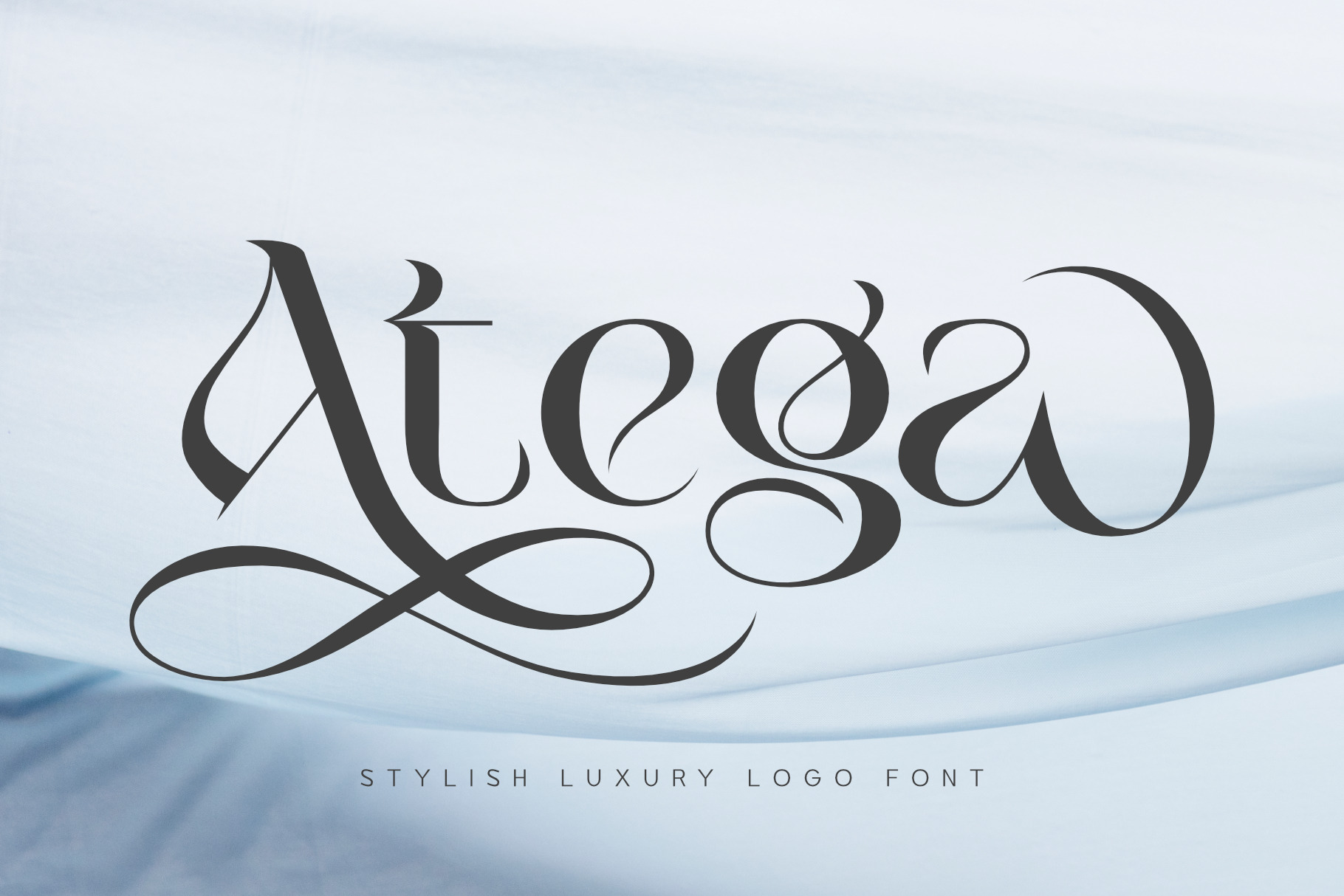
Atega - Stylish Luxury Logo Font
Introducing Atega, a font that embodies the essence of modern luxury and timeless elegance. Designed to enhance your brand, Atega seamlessly blends contemporary style with classic refinement, making it the perfect choice for logos and upscale branding projects.
The Story Behind Atega:
Imagine a typeface that captures the spirit of sophistication, combining modern design elements with traditional elegance. Atega was created to exude style and grace, offering a premium look that ensures your designs make a lasting impression. Each character is meticulously crafted to reflect refinement and quality, helping your creations stand out in any context.
Atega Font Features:
- Elegant Design: A stylish and polished font ideal for luxury branding.
- Modern Aesthetics: A perfect fusion of contemporary design and classic sophistication.
- Versatile Applications: Suitable for logos, branding, invitations, and high-end marketing materials.
- High Readability: Clear and refined, ensuring your message is conveyed with elegance.
- Creative Previews: Includes sample designs to inspire your creativity.
- Luxury Brands: Craft logos and brand identities that exude elegance and sophistication.
- Premium Products: Design packaging and marketing materials for high-end products.
- Event Invitations: Create stunning invitations for weddings, galas, and exclusive events.
- Upscale Marketing: Elevate promotional materials with a touch of luxury and style.
With Atega, your designs will radiate elegance and sophistication. Whether you're working on high-end branding, premium product packaging, or exquisite event invitations, Atega provides the perfect balance of modern style and classic charm. Elevate your brand with Atega and make a statement of luxury and refinement.